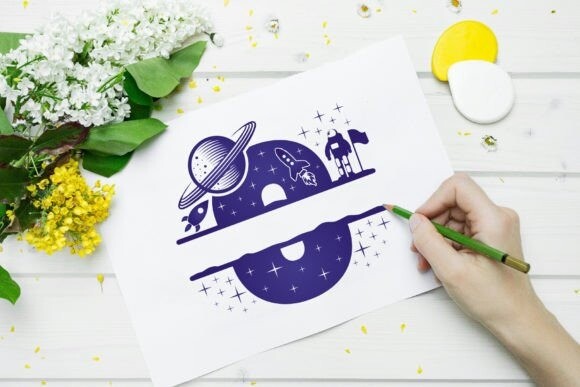
Space Monogram Font
Space Monogram decorative font is a charming and attractive typeface with a fun space theme. Featuring adorable astronaut characters, it adds a touch of whimsy to your designs. This font will be a great asset to your font library, as it is perfect for posters, banners, t-shirts, mugs, and other interesting projects.